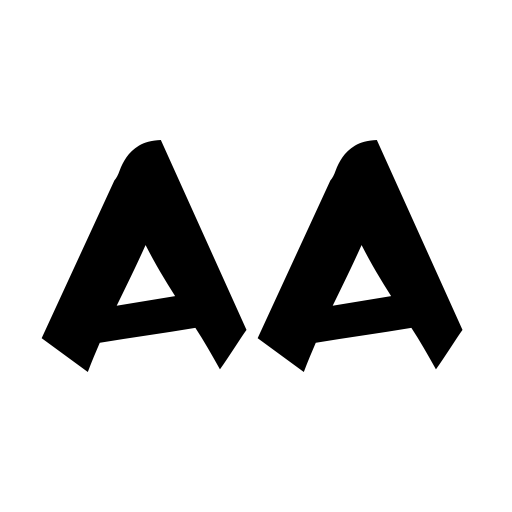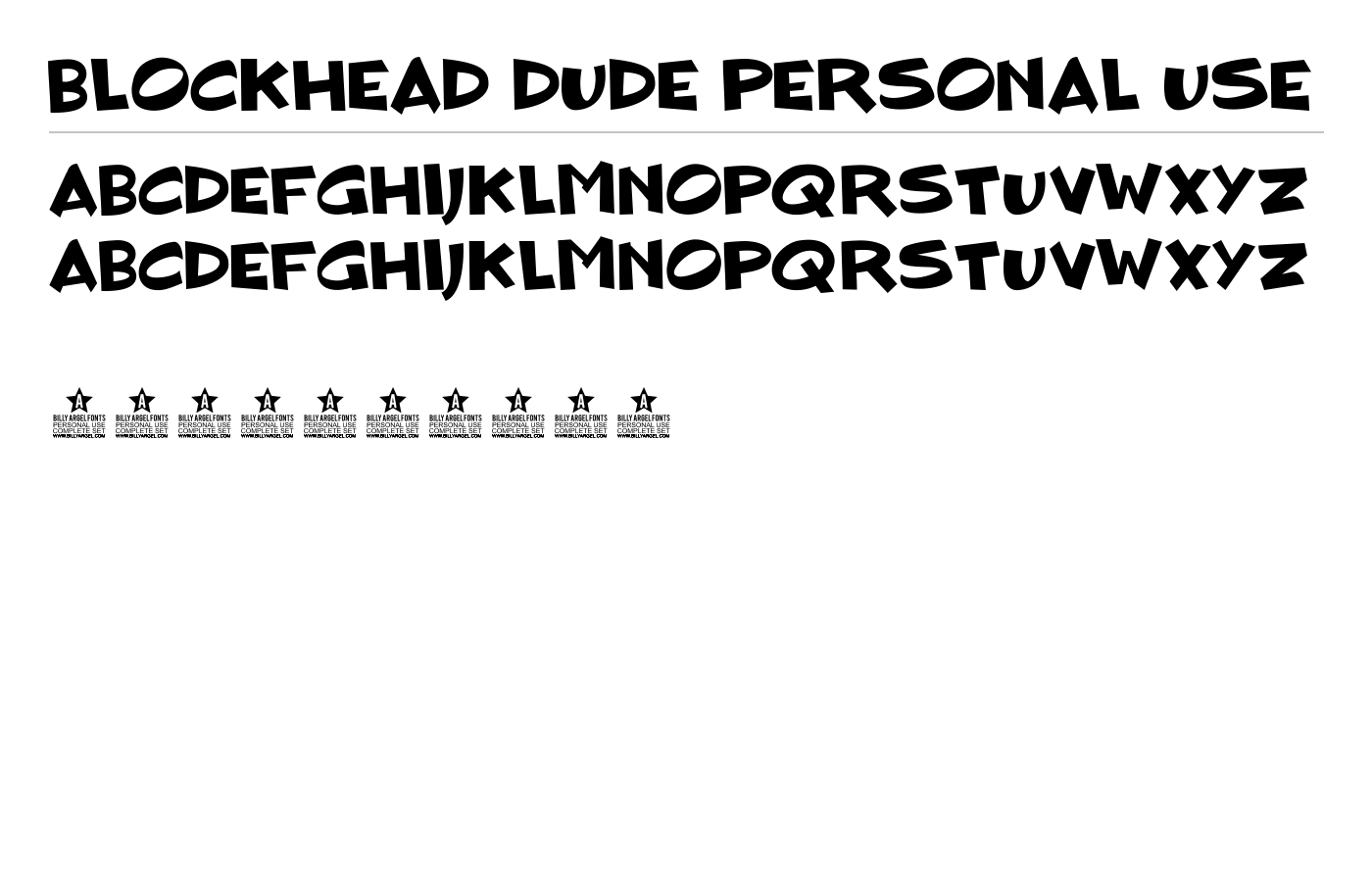
BLOCKHEAD DUDE is a bold, playful sans serif font characterized by chunky, irregular letterforms that convey a fun and informal vibe. Its slightly condensed width and energetic shapes make it perfect for eye-catching headlines, posters, and branding that aims to feel youthful and approachable. This font works well in creative projects where personality and uniqueness are key to grabbing attention.
BLOCKHEAD DUDE Personal Use Font
About BLOCKHEAD DUDE Personal Use Font
| Font family | BLOCKHEAD DUDE Personal Use Font |